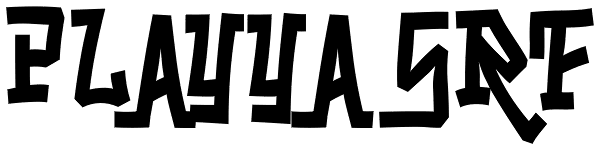
Playya SRF
Playya SRF resembles graffiti tagging and was created by Ray Larabie for Stella Roberts Fonts. The net profits from my font sales help defer medical expenses for my siblings, who both suffer with Cystic Fibrosis and diabetes. Thank you.